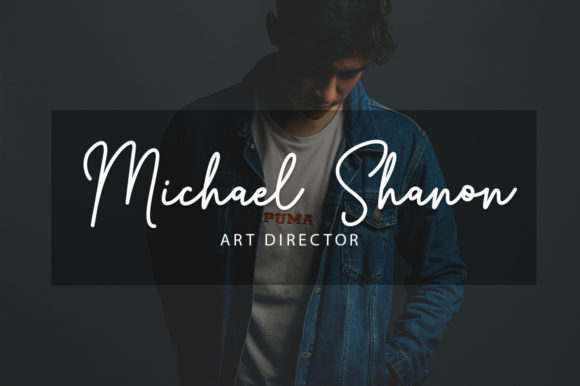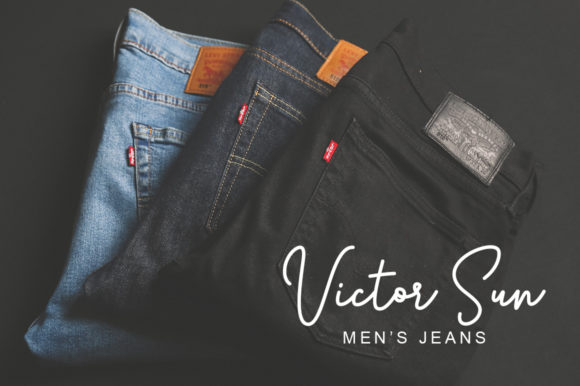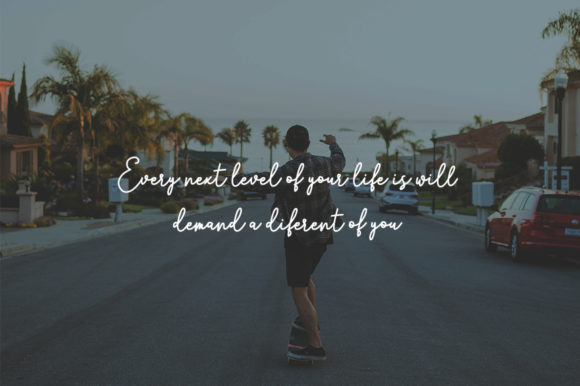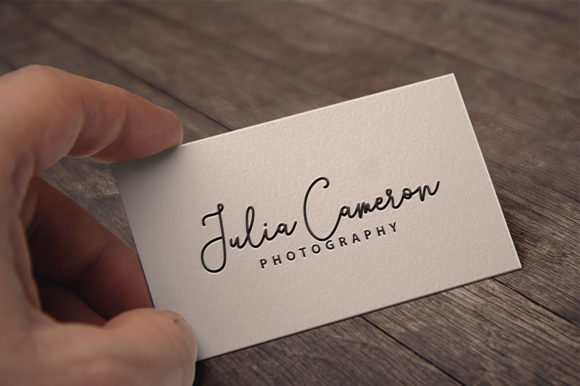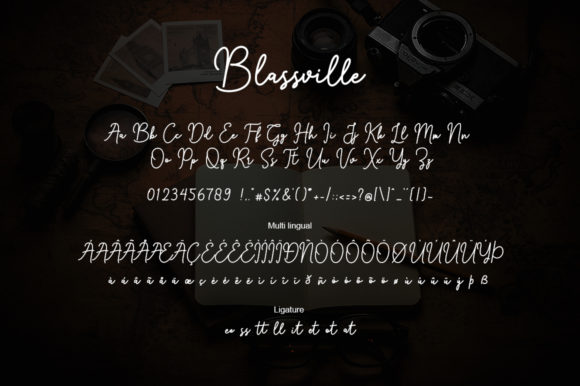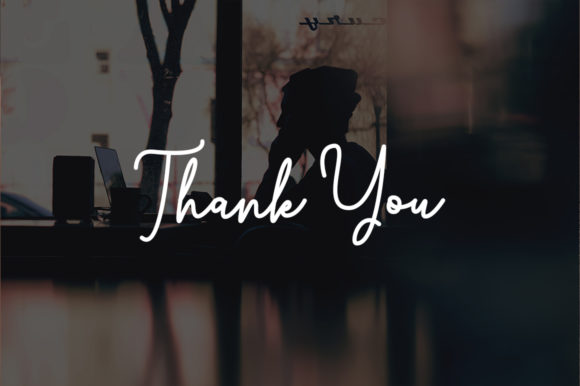
Blassville Font
About Blassville Font
Blassville is a casual, yet elegant handwritten font with an effortless vibe. It will add a unique feel to any design project.